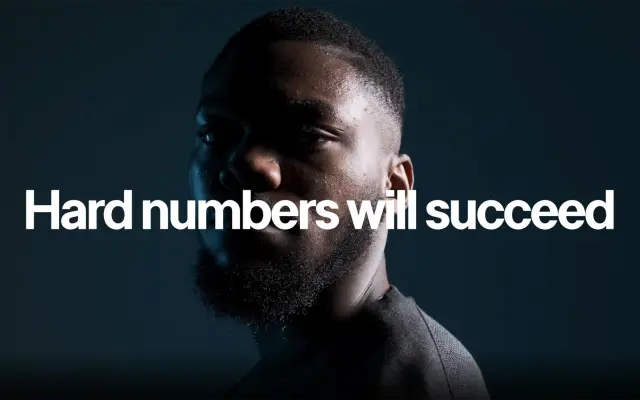
Increments · Increments Type Foundry · 2021
A restrained geometric sans from Increments, built on functional modernist principles across five weights with oblique companions.
Released in September 2021, it pairs clean geometry with technical precision to produce a sans that reads as calm and unaffected across sizes. The family runs to ten styles — five weights from Light to Black, each with an oblique — covering 247 glyphs and 87 languages. Suited to branding and UI work where legibility and understatement are the brief.
Clean geometry combined with technical precision and a restrained, functional approach places this firmly in the geometric sans tradition, with modernist rather than humanist influences.